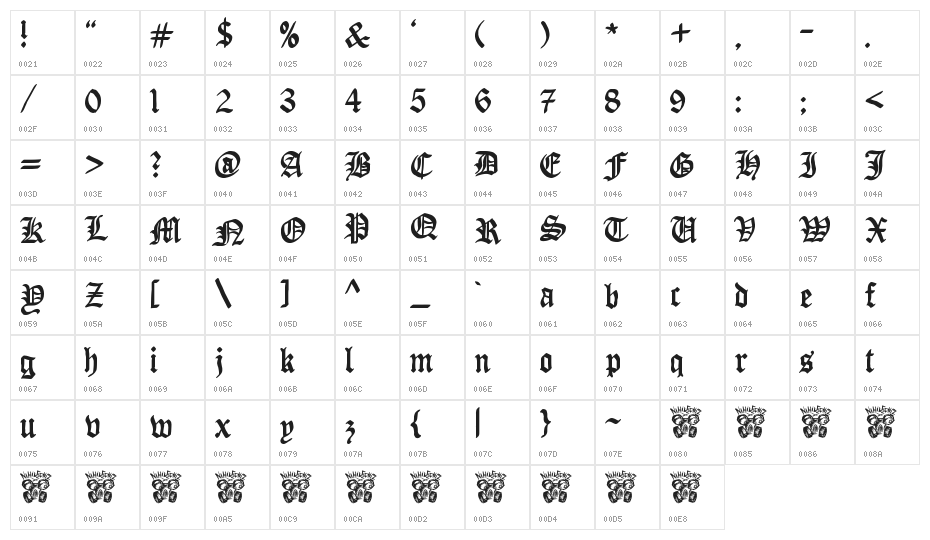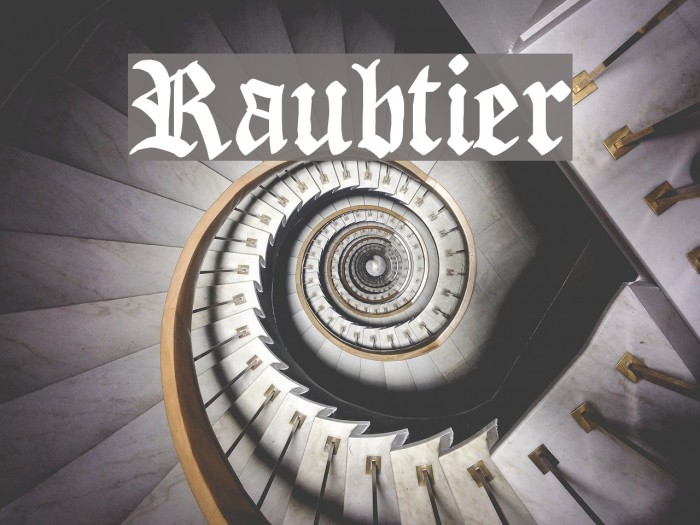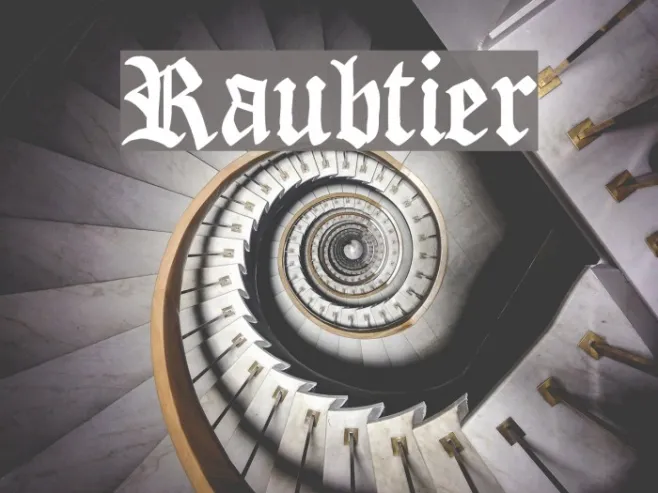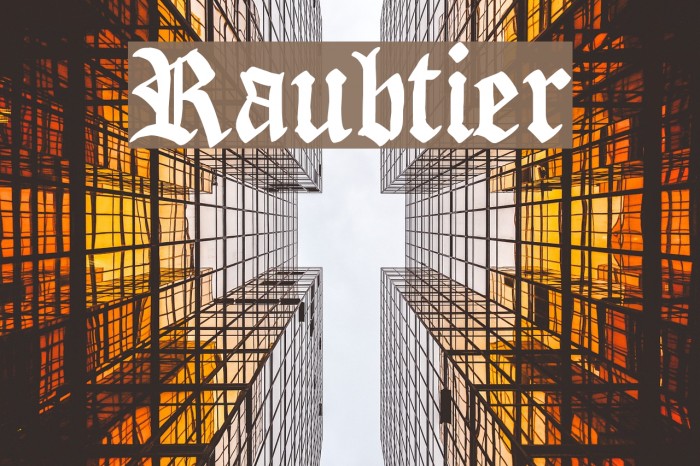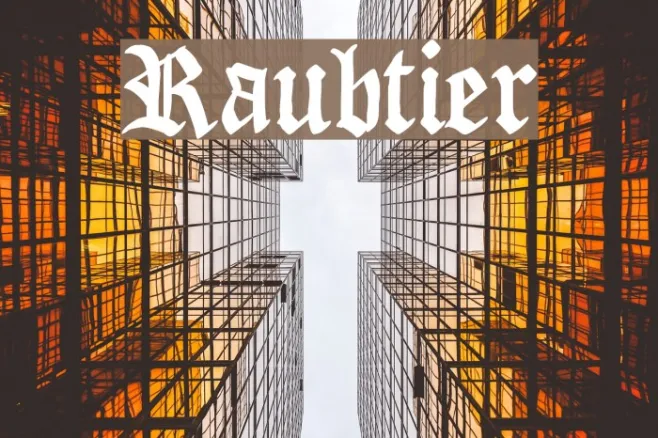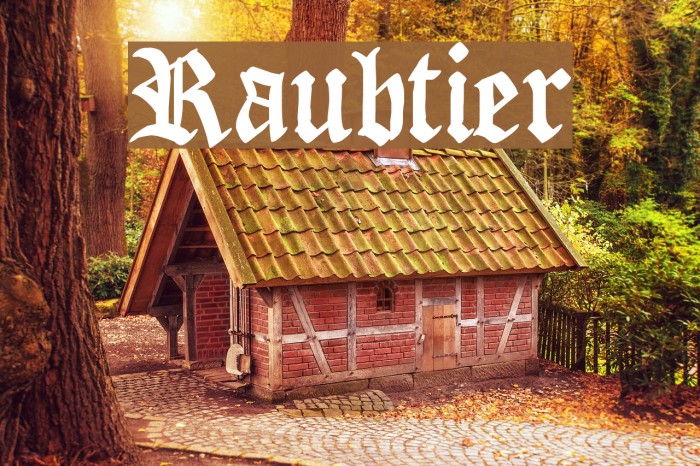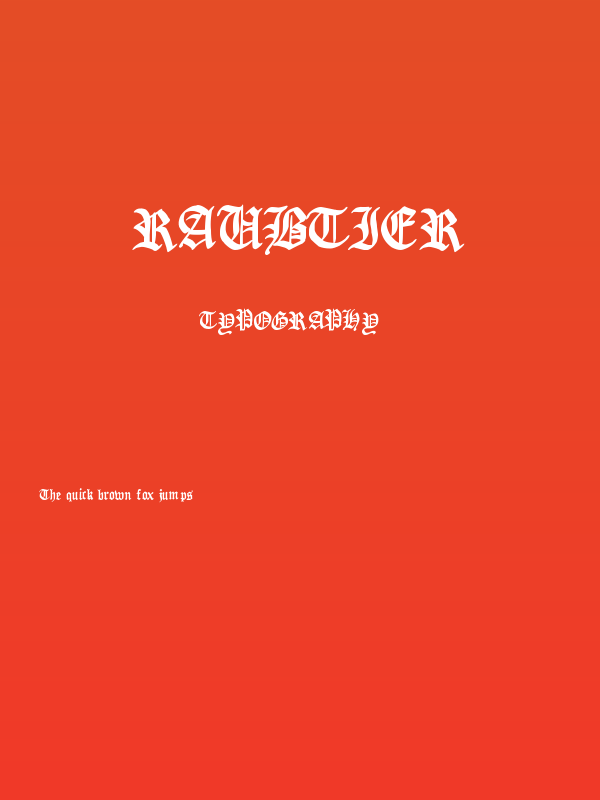
Raubtier Font
Raubtier Description
This font embodies the traditional elegance of Blackletter style, characterized by its intricate and ornate letterforms. The strokes are bold and angular, with sharp serifs and dramatic curves, creating a sense of historical gravitas and authority. The uppercase letters are particularly elaborate, with decorative flourishes that enhance their visual impact. The lowercase letters maintain a consistent style, offering a harmonious balance between readability and aesthetic appeal. Numbers and special characters are designed to match the overall style, ensuring a cohesive look across all text elements.
| Use Case | Headlines, Logos, Decorative text |
| Proposed Projects | Ideal for projects requiring a historical or gothic touch, such as book covers, posters, or branding for vintage-themed events. |